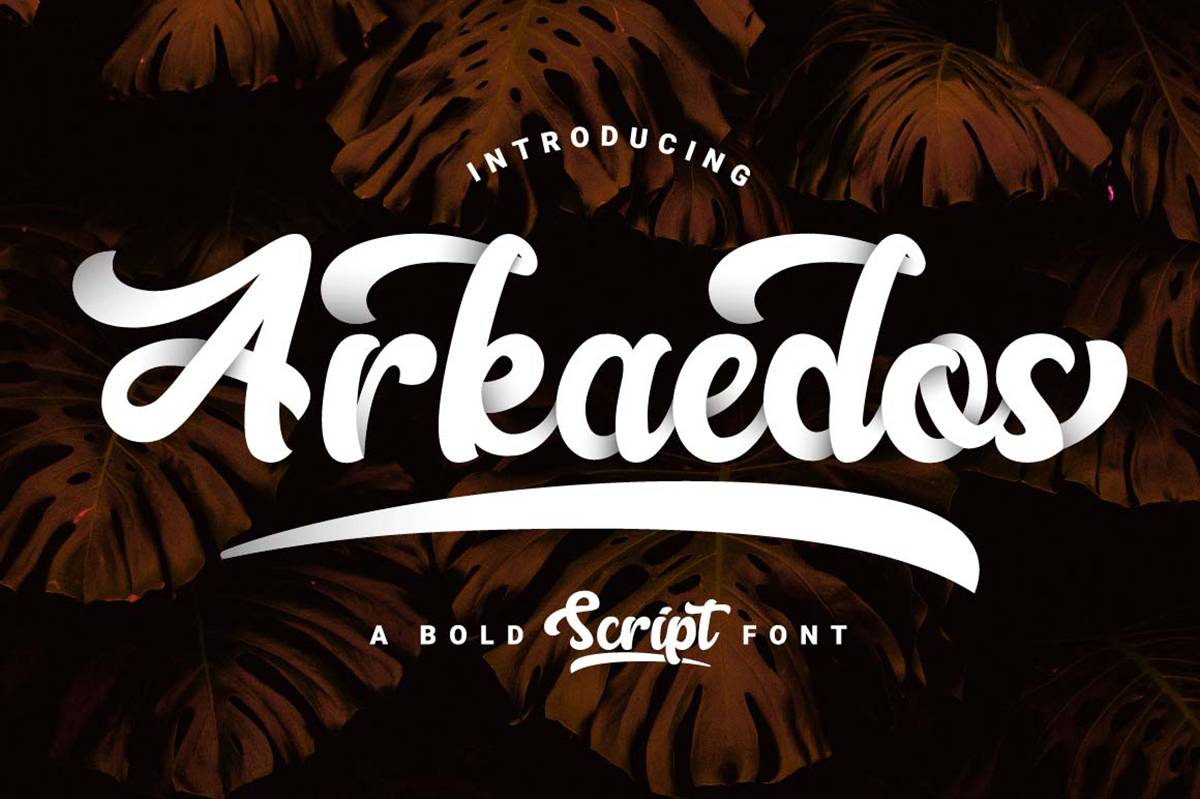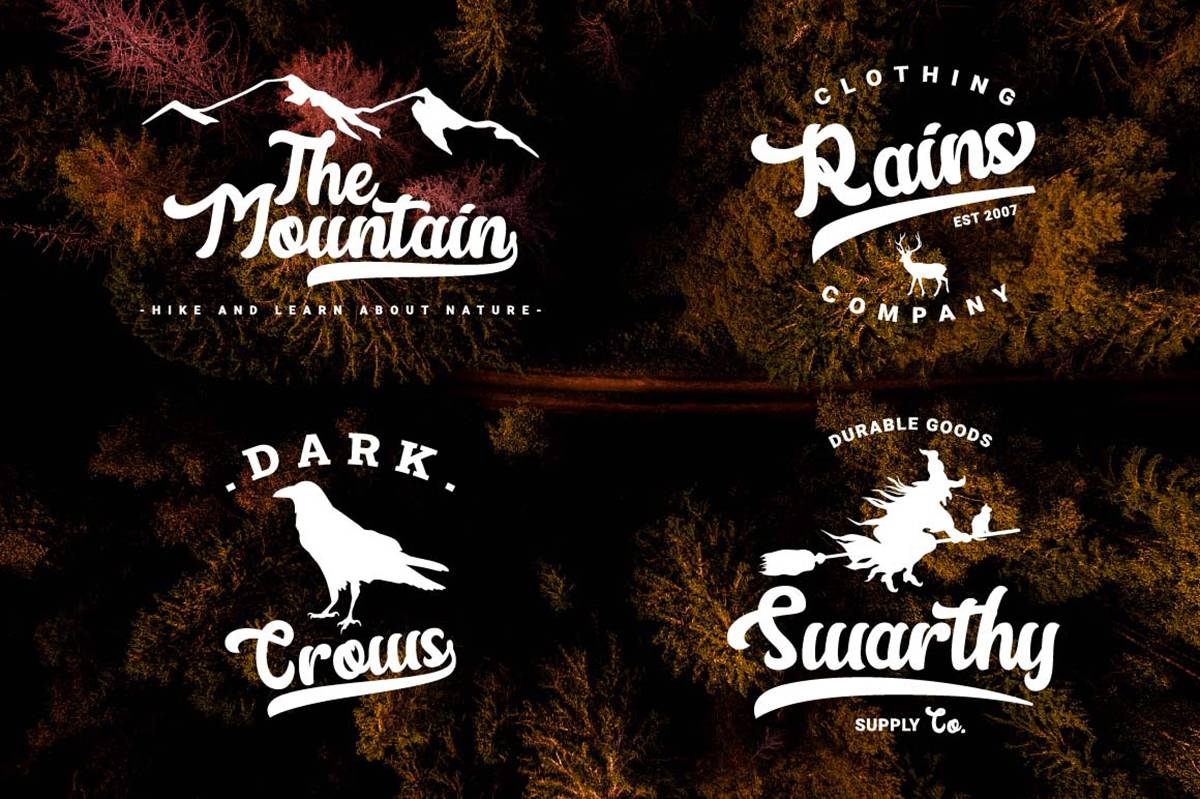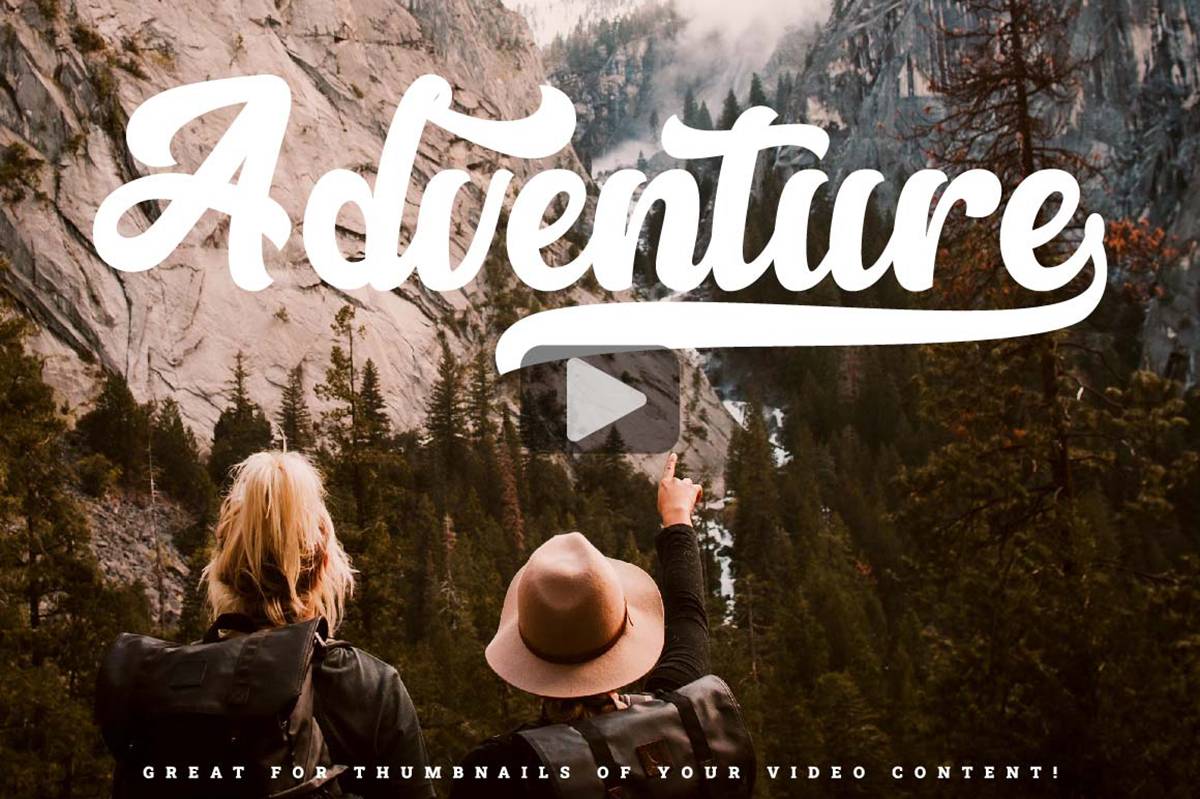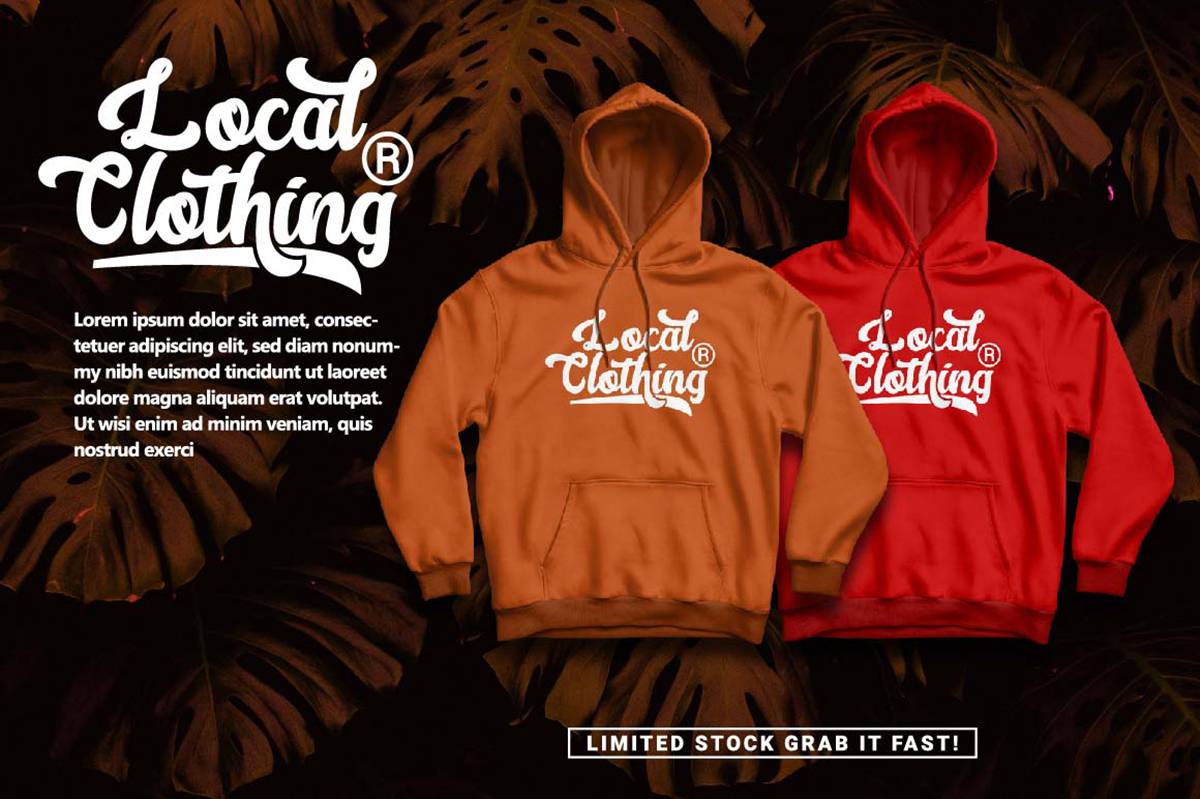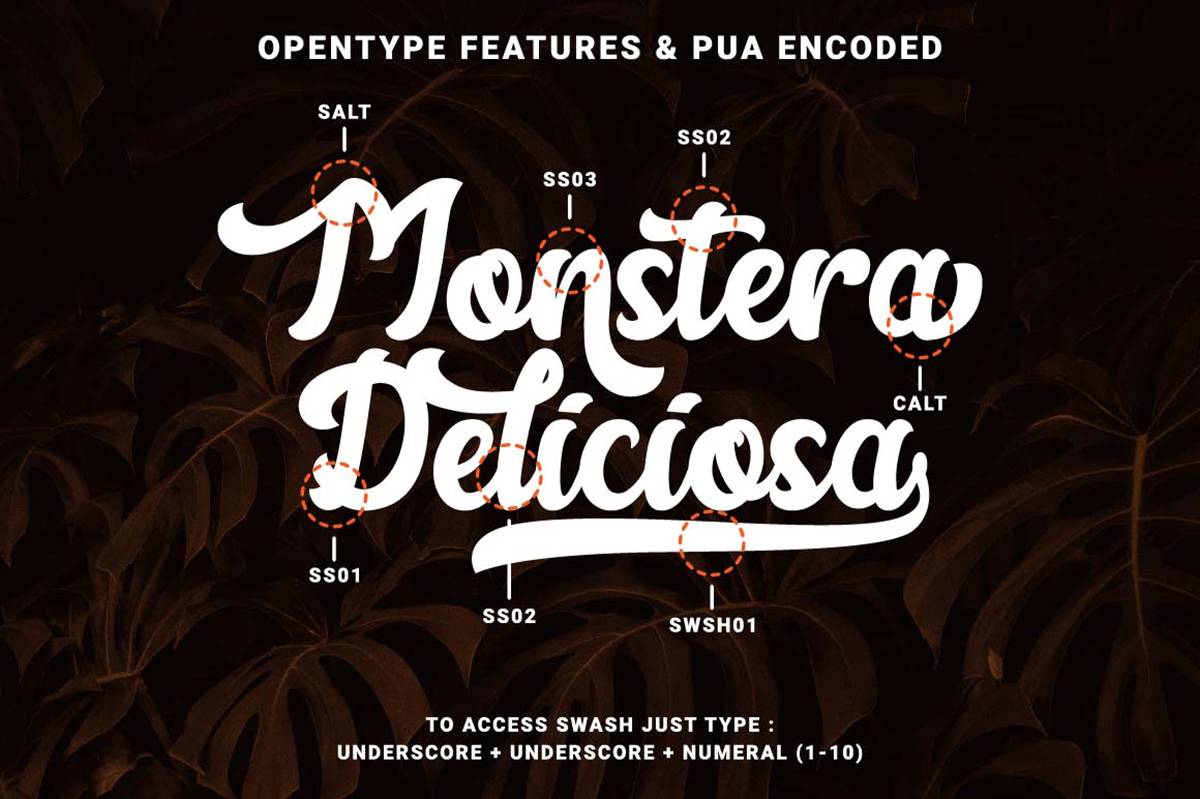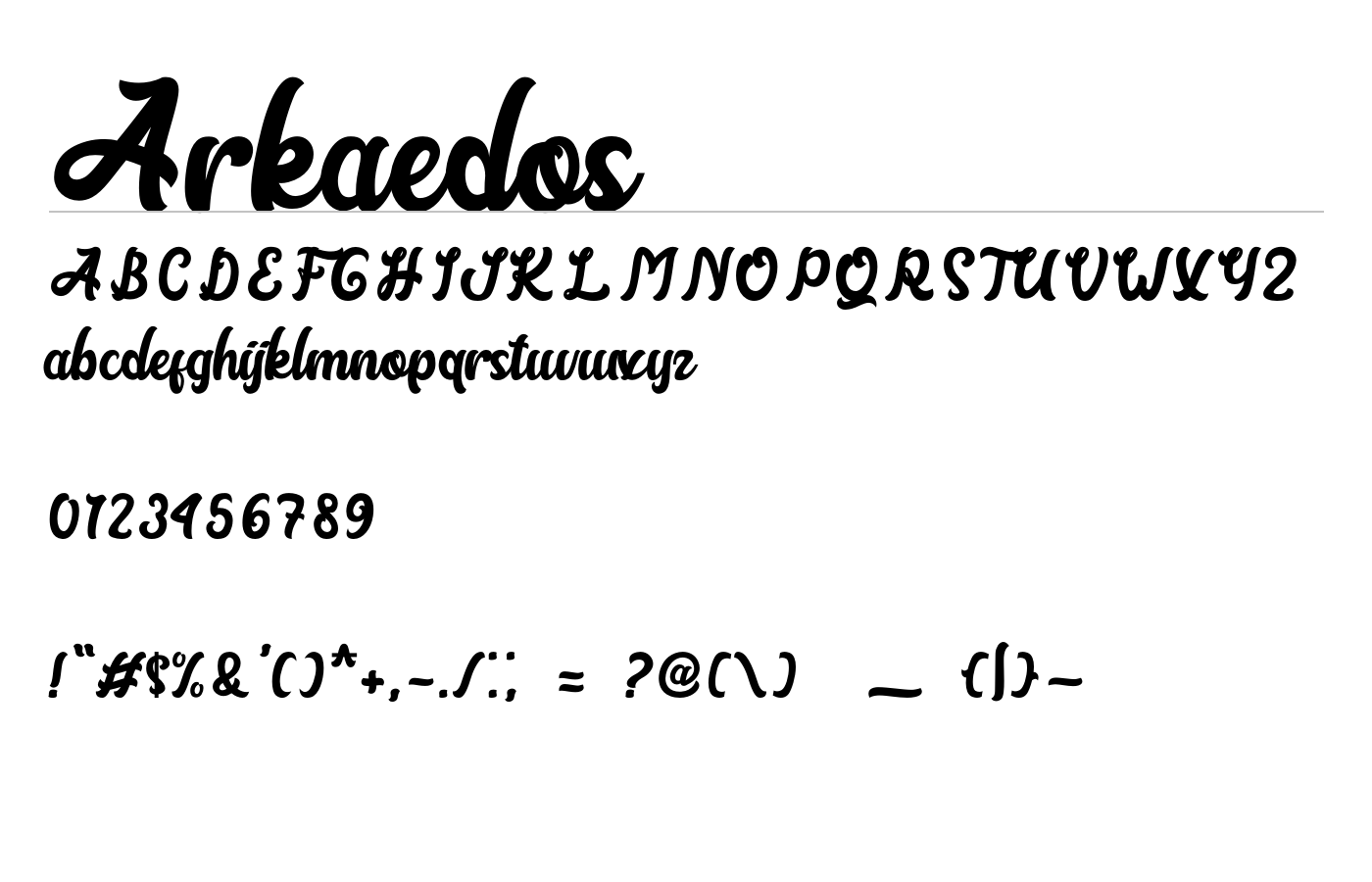
Arkaedos is a bold, brush-style script font that exudes a lively and expressive personality with its thick, rounded strokes and playful letterforms. Its slightly condensed shapes and fluid connections make it ideal for attention-grabbing headlines, logos, and branding where a friendly, artistic touch is needed. This font works well in creative, casual contexts, adding a dynamic and handcrafted feel to any design.
Arkaedos Font
About Arkaedos Font
| Font family | Arkaedos Font |
| Designer | Prio Nurokhim Aji |